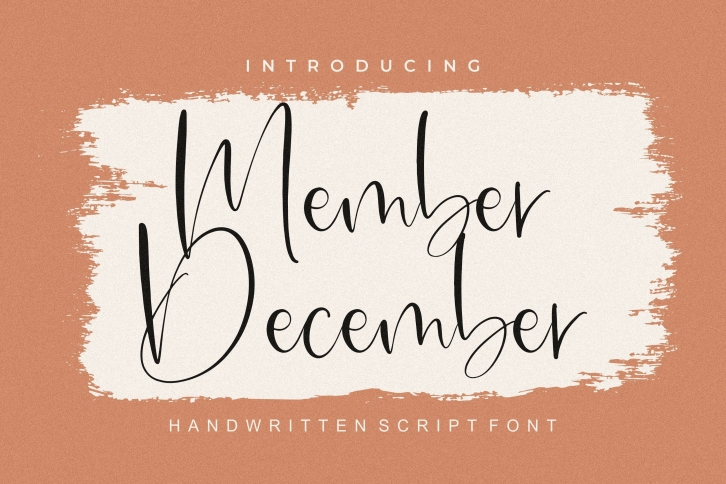
Member December is a trendy and unique font with an authentic style. It was designed by Integritype Studio and it's a great choice for creative people who need such a font. It was released on October 29, 2021 and the file size is 20.2 MB. Member December will add an organic vibe to any design idea!